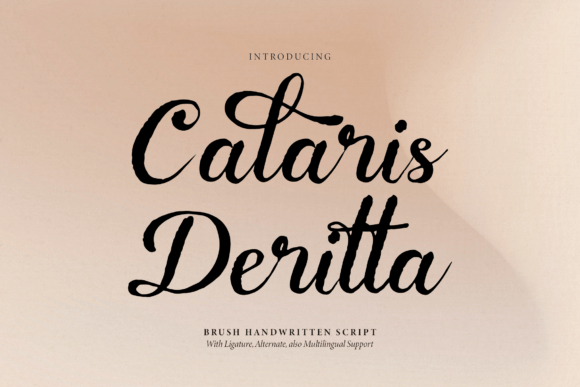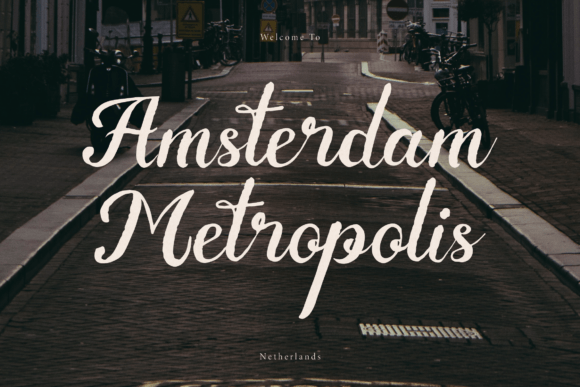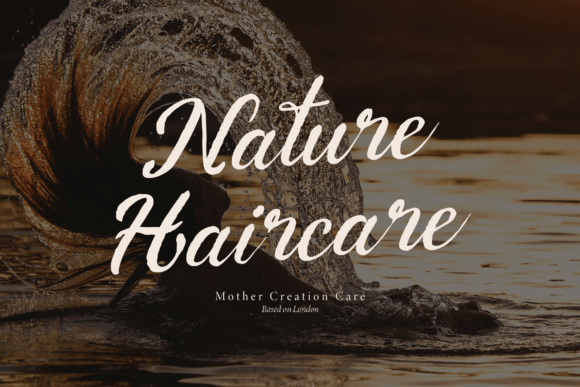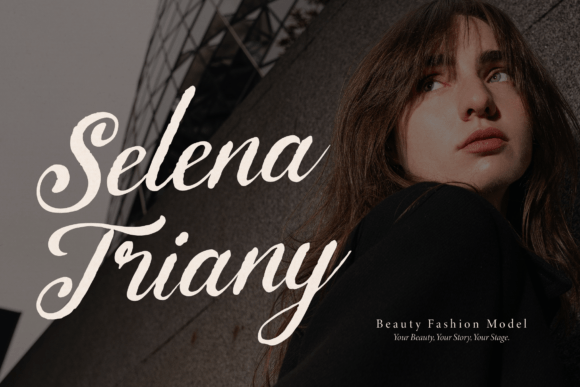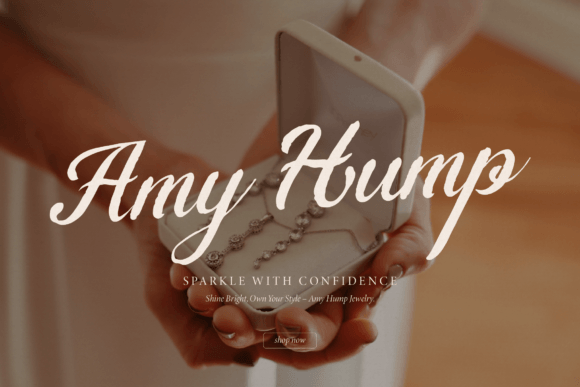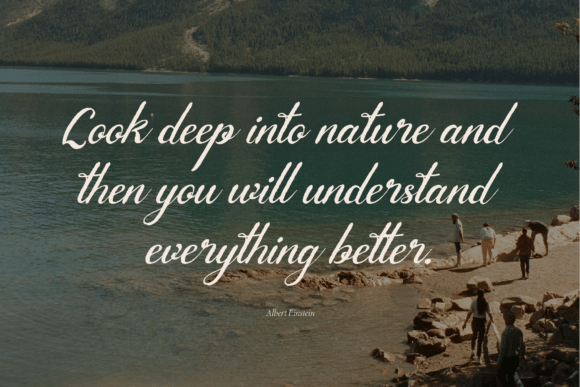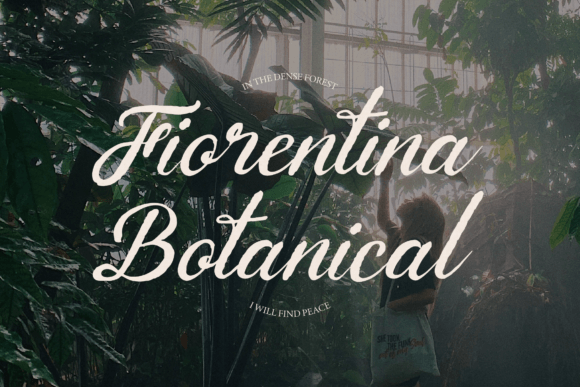
The Perfect Brush for Your Next Creative Project
As a designer, there’s nothing quite like the thrill of starting a new project and seeing where your creativity takes you. You’ve got a blank canvas, a spark of an idea, and a sense of limitless possibility. But sometimes, it’s the smallest details that make all the difference – a unique font, a bold color scheme, or a clever layout that sets your design apart from the rest.
Enter the Calaris Deritta Font, a stunning brush handwritten font that adds a touch of elegance and whimsy to any design. With its flowing, artistic style, it’s perfect for invitations, logos, and greeting cards that need a personal and unique touch. Whether you’re a seasoned pro or just starting out, this font is a valuable tool in your design arsenal – and with its versatility and charm, it’s sure to become a go-to favorite.
Calaris Deritta Font Key Features
- Font Family: Calaris Deritta
- Unique Characteristics: This elegant script font features beautiful connections and subtle flair, making it perfect for creative projects, invitations, and wedding designs
- Character Set: Includes a wide range of characters, including uppercase and lowercase letters, numerals, and punctuation marks
Calaris Deritta Font Review
Overall, I’m impressed with the Calaris Deritta font, but it’s not without its quirks. Let’s dive into what works well and what doesn’t.
- Unique Style: Calaris Deritta has a distinctive, elegant look that’s perfect for creative projects or branding.
- High-Quality Rasterization: The font renders beautifully at various sizes and resolutions, making it suitable for both digital and print use.
- Good Legibility: The font is clear and easy to read, even at smaller sizes.
- Limited Language Support: Unfortunately, Calaris Deritta only supports a limited number of languages, which might be a problem for multilingual projects.
- No Cyrillic or Asian Script Support: The font doesn’t include support for Cyrillic or Asian scripts, which can be a significant limitation for global projects.
- Not Ideal for Body Text: While Calaris Deritta looks great as a heading font, it’s not the best choice for body text due to its limited x-height and irregular letterforms.
In conclusion, Calaris Deritta is a beautiful font that excels in certain areas, but its limitations might make it less suitable for certain projects. If you’re looking for a unique, high-quality font for a specific use case, Calaris Deritta might be the perfect choice. However, if you need a more versatile font with broader language support, you might want to consider other options.
Tips for Getting the Most Out of Calaris Deritta
To get the most out of Calaris Deritta, use it for titles and headings to create a professional and elegant look. You can also use it in conjunction with other fonts to create a unique and visually appealing design. Experiment with different font sizes and styles to find the perfect balance for your design.
Calaris Deritta is commonly used for wedding invitations, business cards, and other formal documents. It’s also great for creating elegant and sophisticated designs for marketing materials, such as brochures and flyers.
Playfair Display is a luxurious and elegant serif font, perfect for creating a high-end feel in your designs. It is ideal for use in titles, headings, and other display text where you want to make a statement. Compared to Calaris Deritta Font, Playfair Display has a more traditional and classic look, while Calaris Deritta Font has a more modern and minimalist feel.
Q: What is the recommended font size and line height for the Calaris Deritta Font?
For optimal readability, we recommend using the Calaris Deritta Font with a font size of at least 16px and a line height of at least 1.5x the font size. This will ensure that the text is clear and easy to read on various devices and screen resolutions.